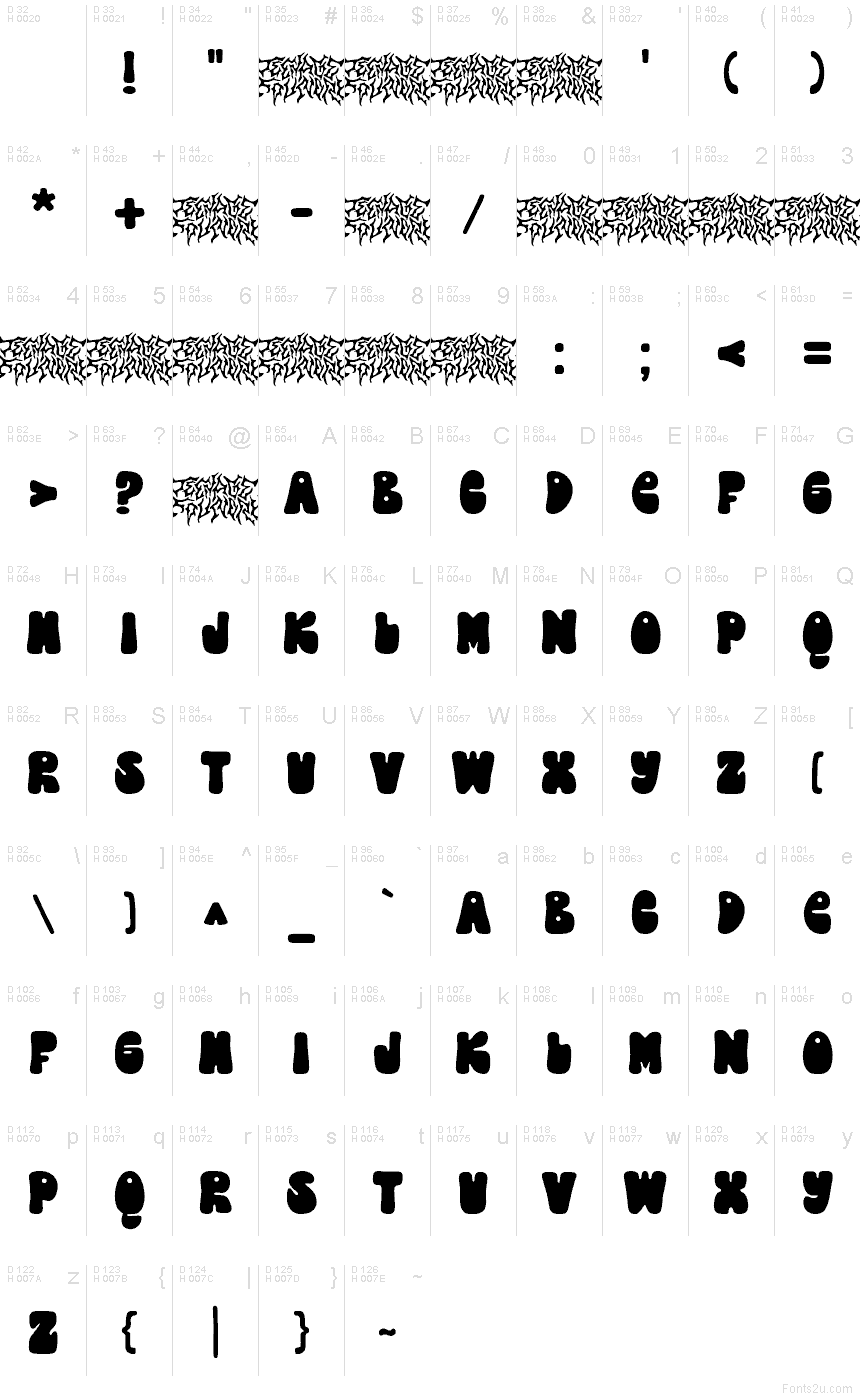
Teenage Snaggy Demo
Teenage Snaggy font by Teenage Foundry is a free groovy display typeface that looks like it’s been puffed up like bubble gum and cut with scissors. Chunky, rounded shapes and snug spacing pack each word into a bold, bouncy block of color, so your message feels loud, playful, and impossible to miss. There’s a hand-drawn wobble to the curves that keeps it fun rather than polished, like doodles from a notebook turned into a headline.
Using Teenage Snaggy, your designs snap to life on party posters, merch and stickers, YouTube thumbnails, kids’ event branding, album or playlist covers, and bold social media graphics. This free font loves big sizes where its squishy curves can really show, and it works beautifully when paired with a simple, clean sans serif for smaller supporting text.